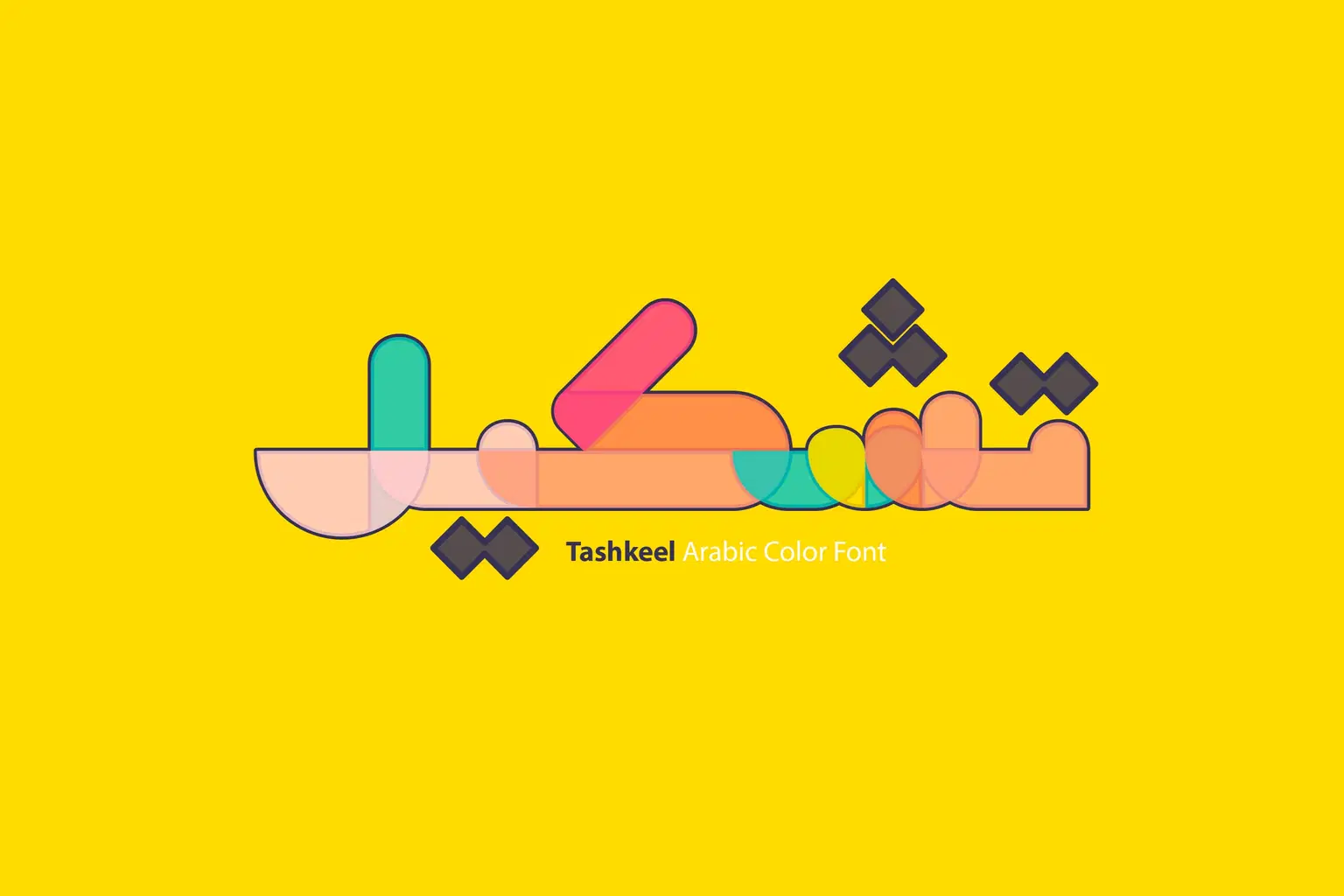
Tashkeel (The Arabic for ‘Diversification’) is a display font featuring colorful, translucent letterforms. The family includes three styles: Monochrome, Polychrome, and Xray. Tashkeel is well-suited for modern web, print, and mobile design. It is available in both vector and raster color font formats (SVG‑OpenType and SBIX).
Three styles